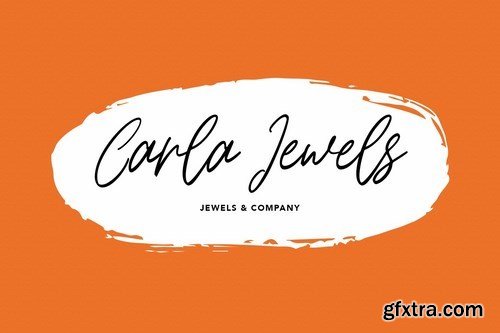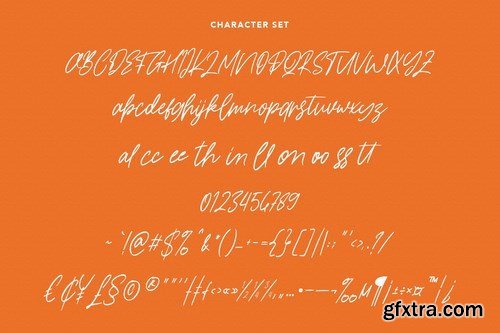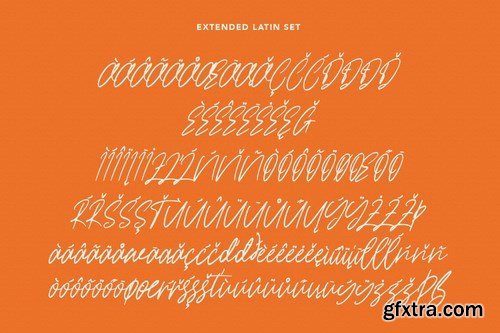
Kites String is a handwritten script font, With fancy, slanted and fun characters. It has Opentype features of ligatures, makes it a perfect choice for branding and digital designs. Use this font for logos, social media, websites, blogs, instagram, social media, business cards, branding, and more! Kites String font support multilingual more than 100+ language. and good pair for your secondary text font with sans or serif. Make a stunning work with Kites String script font.